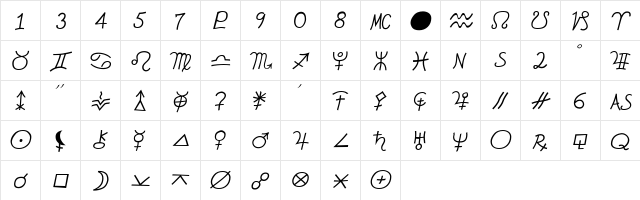
StarScript Roman
StarScript flows with the natural rhythm of handwritten lettering, making it ideal for designs that call for warmth and personal expression.
Font Pairing: Combine StarScript with a simple geometric sans for maximum contrast — the tension between flowing curves and clean structure is a classic typographic pairing.
Pro Tip: Use StarScript for short runs of text — names, titles, or taglines. Extended body copy in script faces tires the eye quickly.